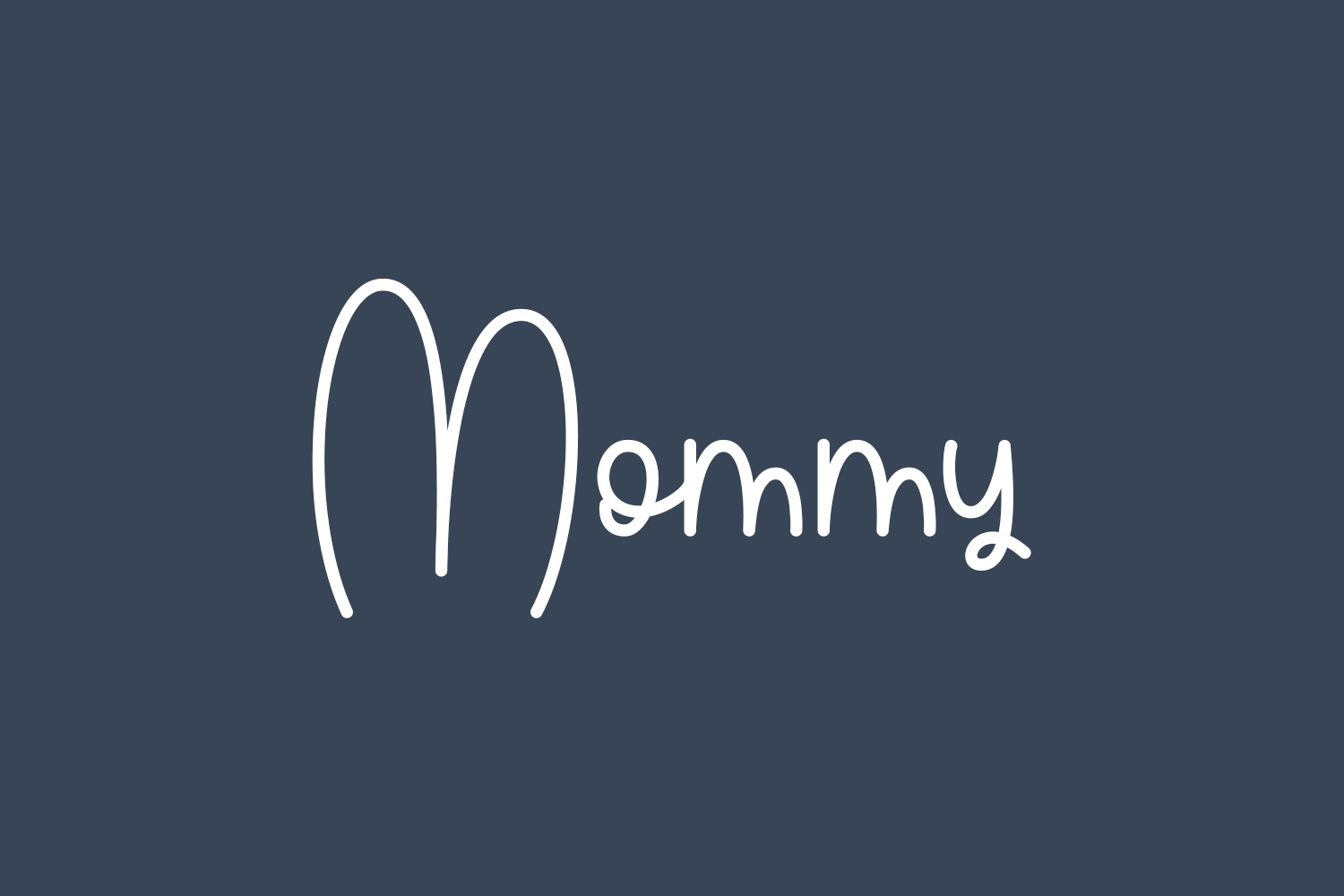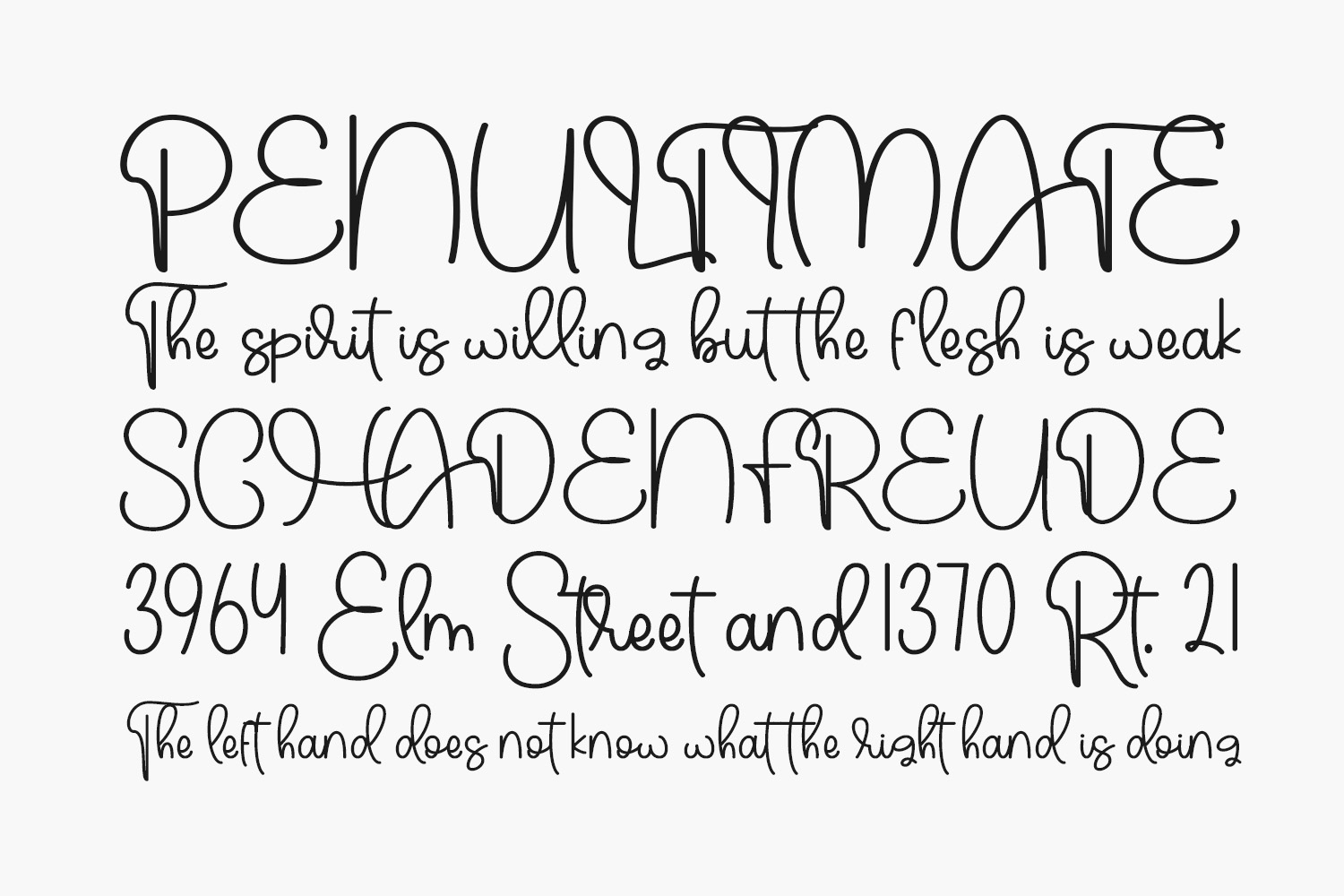
Introducing the Mommy Free Font Family – a sophisticated and charming font duo. It is featuring both a handwritten script and a sleek sans-serif design. This unique and elegant font is adorned with delicate swashes. The Swashes add a touch of sweetness to your designs. Ideal for a wide variety of projects, from creating elegant letterheads and captivating titles to designing charming stationery. With its dainty and refined look, this typeface is sure to bring sophistication and beauty to any project. That is why you will make it a must-have for all crafty creatives.